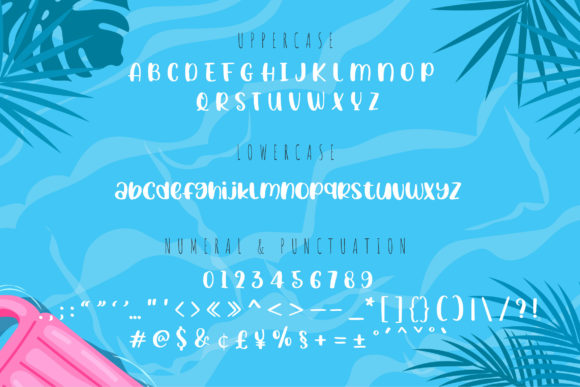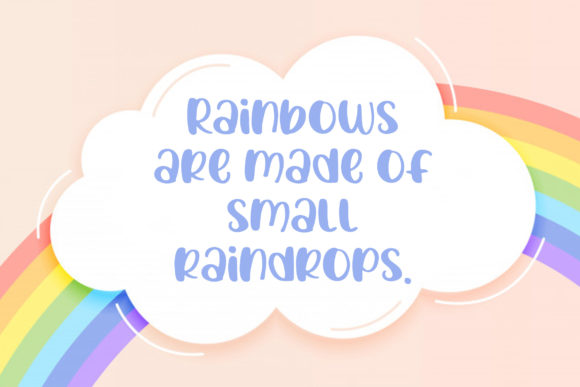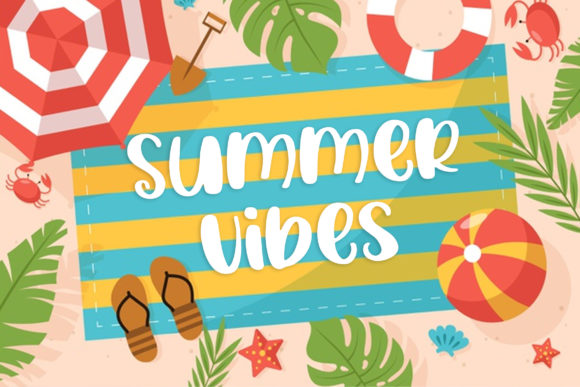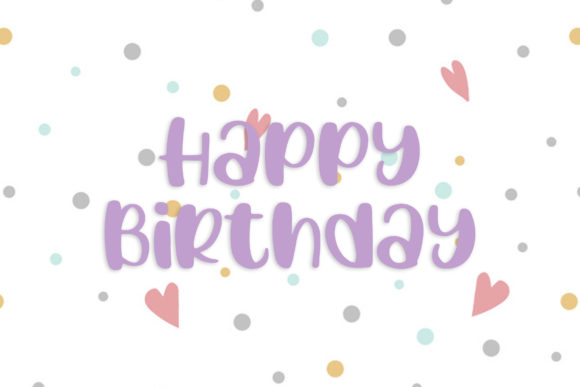
Introduction to Hey Sunshine Font
As a designer, have you ever found yourself staring at a blank canvas, desperately seeking the perfect font to bring your creative project to life? I know I have! It’s that moment of frustration, when you’re about to give up, that a new font discovery can be a lifesaver. And, for me, that font was the Hey Sunshine Font.
This charming display font is a game-changer for designers who want to add a touch of warmth and personality to their designs. With its well-rounded characters and easy-readable style, it’s the perfect design resource for any crafty project. Whether you’re working on a graphic design project, creating a social media post, or designing a product label, the Hey Sunshine Font is sure to make your design shine.
Key Features of Hey Sunshine Font
- High-quality design resource perfect for creative projects, offering a unique and playful touch.
- Designed to be highly legible, making it suitable for use in a variety of creative projects, from logos to signage.
- Part of a larger font family, offering a range of styles and variations to suit different design needs.
Honest Review: Hey Sunshine Font
As a designer, I’ve had the chance to work with many fonts, but the Hey Sunshine Font has truly stood out to me. This free download has become a go-to resource for any creative project that needs a touch of warmth and personality.
What works well: ✨ The font’s unique blend of modern and vintage elements makes it perfect for designs that require a unique voice. The high quality of the font ensures that it looks great even on transparent backgrounds, which is a must for any design project. The Hey Sunshine Font is also incredibly versatile, making it suitable for a wide range of creative projects, from branding to editorial design.
- Perfect for designs that require a unique voice
- High-quality font that looks great on transparent backgrounds
- Extremely versatile and suitable for various creative projects
However, there are a few limitations to keep in mind: ⚠️ The font may not be suitable for very formal or corporate designs, as its playful nature may not be fitting for such projects. Additionally, the font’s uniqueness can also be a drawback, as it may not be easily recognizable or consistent across different platforms.
Overall, I’m really impressed with the Hey Sunshine Font. Its unique style and high quality make it a valuable resource for any designer, and its free download makes it accessible to designers of all levels.
Some tips for getting the most out of the Hey Sunshine Font include using it for title text, headings, and short paragraphs. Common use cases include designing greeting cards, social media graphics, and website headers.